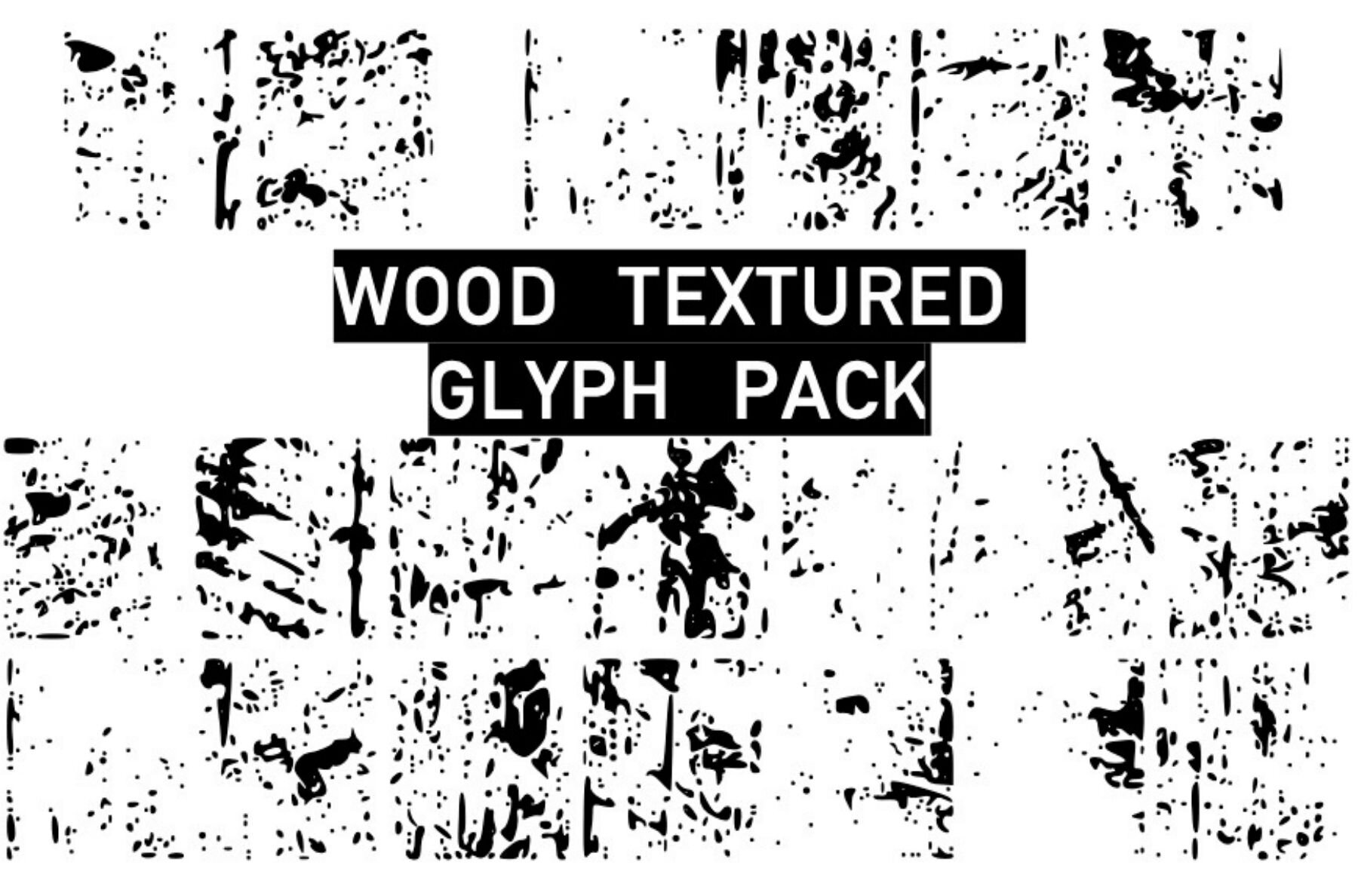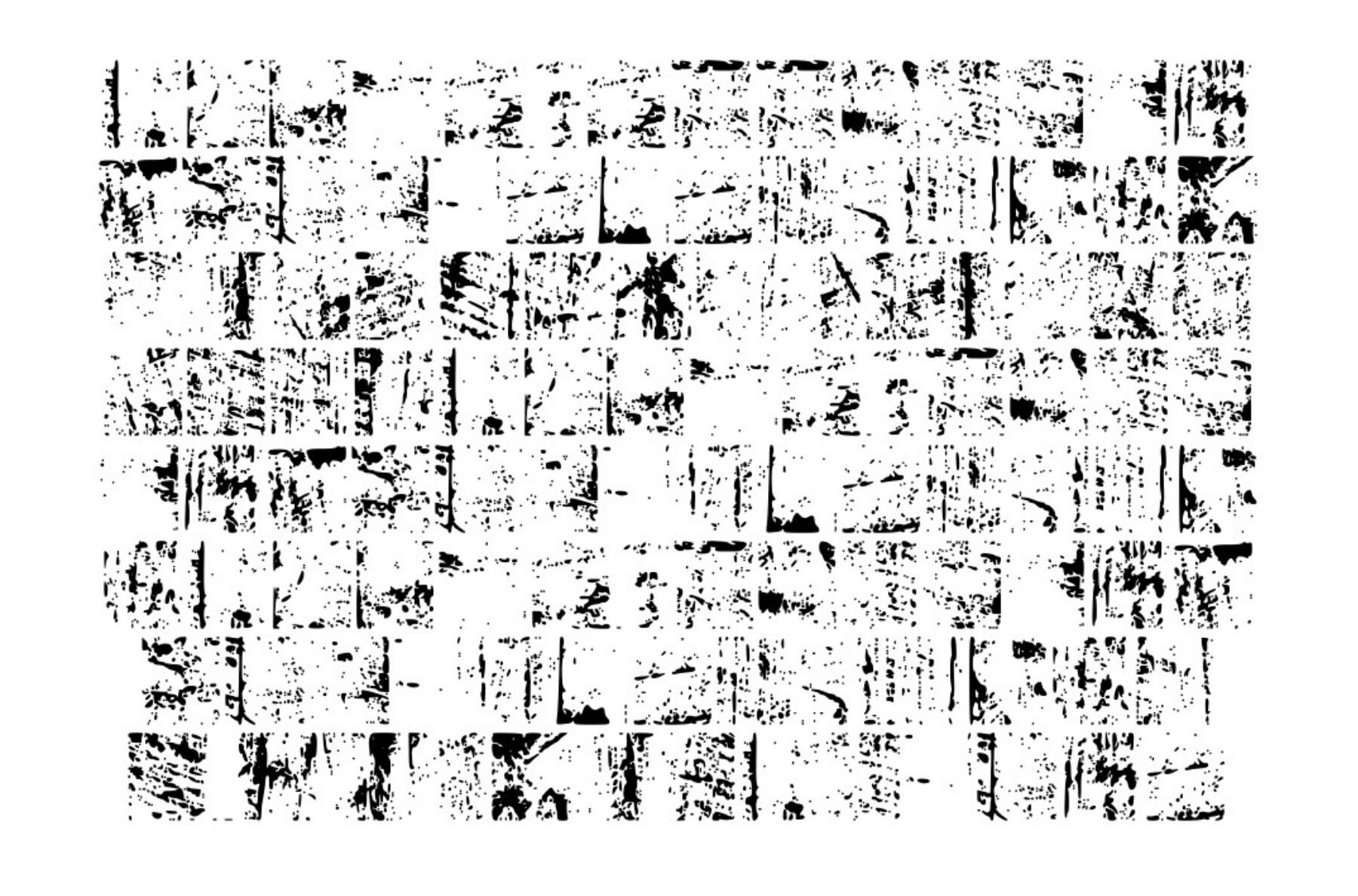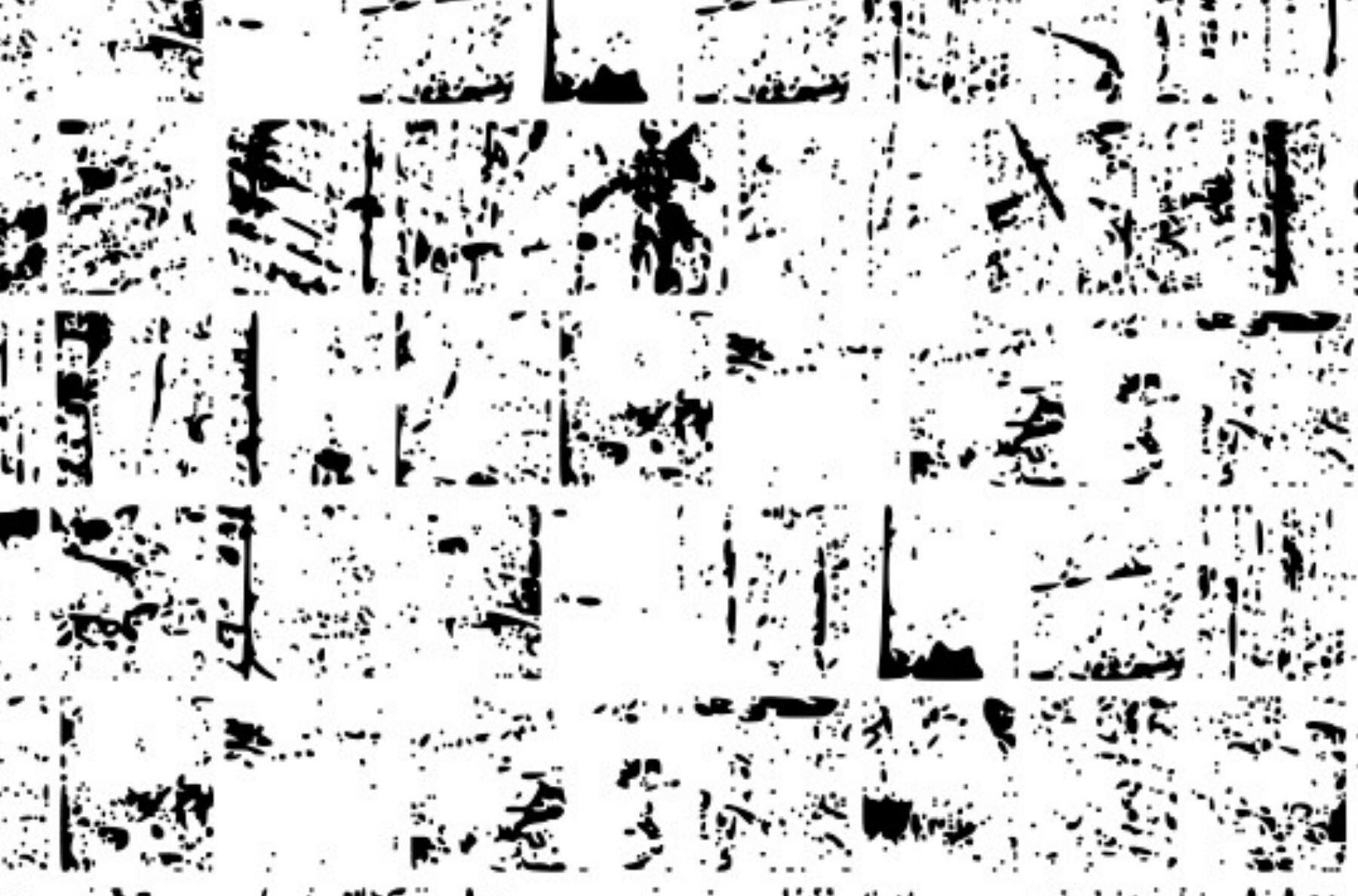
Texture Wood Font
Texture Wood
Embark on a creative journey with the Texture Wood glyph set. Designed for enthusiasts of natural wood aesthetics, this extensive collection offers a diverse range of wood-textured glyphs, ideal for adding a touch of rustic charm to any design or craft project. Each glyph captures the intricate details and warmth of wood, making it easier than ever to enhance your creations with a natural feel.Texture Wood: Wood Textured Glyphs